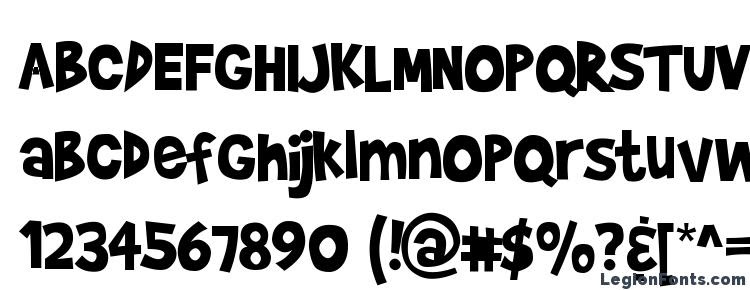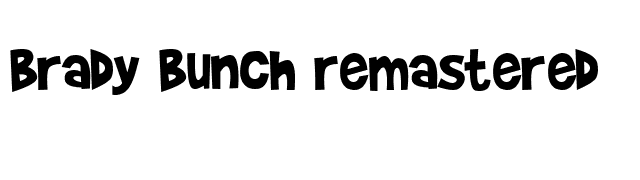
Brady Bunch Logo Font
It Was Created In 1985 By The Typographic Design Team At Insanitype.
A font superfamily is set of typefaces (example: Brady bunch font here refers to the font used in the logo of the brady bunch, which is an american situation comedy that was broadcast from 1969 to 1974 on abc. This font is loosely based on the logo from the brady bunch television show and movie.